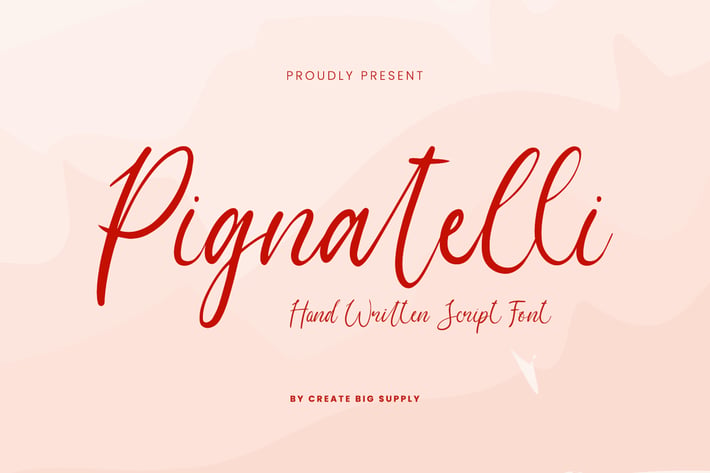
Pignatelli Playful Modern Handwritten Script Font
Pignatelli is a playful modern handwritten script font that brings energy and joy to your designs. Its casual, hand-drawn style is perfect for children’s themes, creative branding, colorful packaging, and uplifting social media content.
With its expressive and bouncy strokes, Pignatelli adds a light hearted and approachable personality to your visuals.
Key Features:
- Fun and playful handwritten script
- Ideal for kids branding and social posts
- Energetic curves with modern appeal
- Great for quotes, packaging, and personal projects
- Full uppercase and lowercase sets
- Numbers and punctuation included
- Supports multilingual characters
Pignatelli is your go to font for spreading creativity, joy, and a youthful spirit in every design.